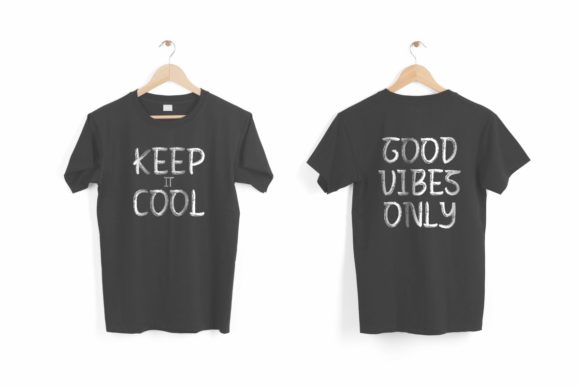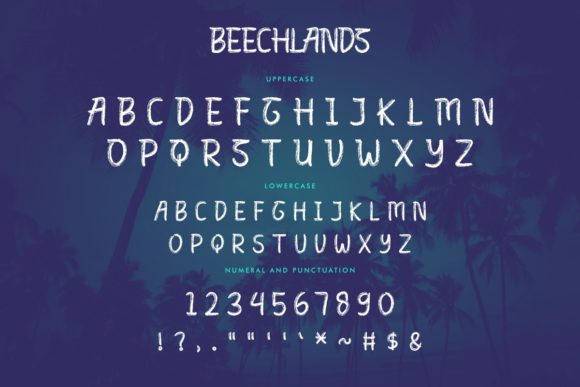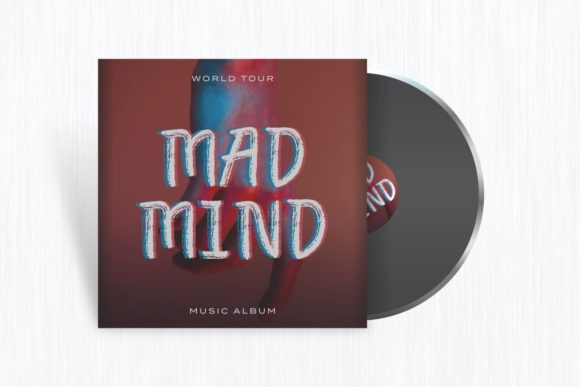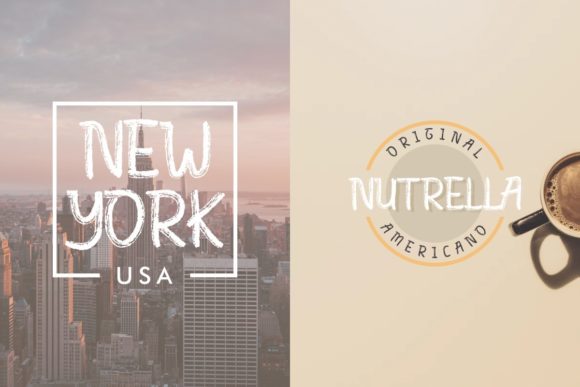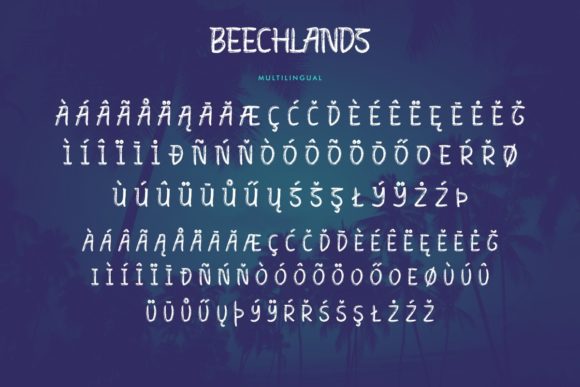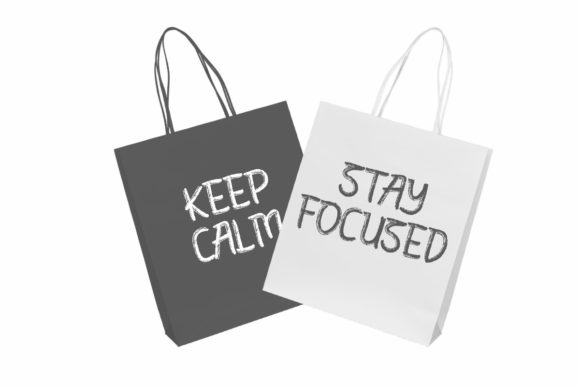
Beechlands Font: Elevate Your Designs with a Cool, Brushed, and Friendly Display Font
In the world of typography, a font can make or break a design. It’s the perfect blend of style, personality, and functionality that can elevate a creation from ordinary to extraordinary. If you’re a designer, crafty enthusiast, or simply someone who appreciates the art of typography, you’re in for a treat. Introducing Beechlands Font, a cool, brushed, and friendly display font that’s about to become your new favorite asset.
The Charm of Beechlands Font
Beechlands Font is a unique and versatile typeface that’s designed to add a touch of personality to any project. Its brushed texture gives it a distinctive, hand-crafted feel that’s perfect for creating eye-catching headlines, titles, and captions. Whether you’re working on a logo, brochure, poster, or social media graphic, Beechlands Font is sure to make your design stand out from the crowd.
What Makes Beechlands Font So Special?
So, what sets Beechlands Font apart from other display fonts? Here are just a few reasons why this font is a must-have for designers and crafters:
- Cool and Friendly Vibe: Beechlands Font exudes a cool, laid-back vibe that’s perfect for designs that require a friendly and approachable tone.
- Brushed Texture: The font’s brushed texture gives it a unique, organic feel that’s reminiscent of hand-painted signs and street art.
- Versatility: Beechlands Font is incredibly versatile and can be used for a wide range of projects, from logos and branding to posters, flyers, and social media graphics.
- Ease of Use: This font is incredibly easy to use, even for those who are new to design. Its clean lines and simple shapes make it a breeze to read and work with.
How to Use Beechlands Font in Your Designs
Now that we’ve covered the basics of Beechlands Font, let’s dive into some practical tips on how to use it in your designs:
Pair it with Other Fonts
Beechlands Font pairs perfectly with a variety of other fonts, from clean and simple sans-serifs to elegant scripts. Experiment with different combinations to find the perfect contrast for your design.
Use it for Headlines and Titles
Beechlands Font is perfect for creating eye-catching headlines and titles that demand attention. Use it to add a pop of personality to your design and draw the viewer’s eye.
Add Texture and Patterns
Take Beechlands Font to the next level by adding texture and patterns to your design. This can include subtle background textures, geometric patterns, or even hand-drawn illustrations.
In conclusion, Beechlands Font is a cool, brushed, and friendly display font that’s sure to become a valuable asset in your design library. Its unique texture, versatility, and ease of use make it perfect for a wide range of projects, from logos and branding to posters, flyers, and social media graphics. Whether you’re a seasoned designer or just starting out, Beechlands Font is a must-have for anyone who wants to elevate their designs and add a touch of personality to their creations.